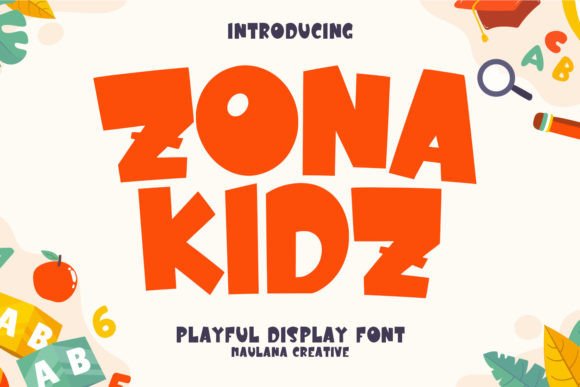
Embark on a Typographic Adventure with Zona Kidz: The Font That Captivates and Inspires
In the realm of fonts, Zona Kidz stands as a vibrant and playful display font, ready to infuse your designs with a touch of whimsy and charm. Its bold strokes and fun characters, adorned with ligatures and alternates, create a visual symphony that dances across your screens, captivating audiences with its unique flair.
Step into the world of Zona Kidz and let your creativity soar, as this font takes you on a typographic journey like no other. Its versatility shines in a multitude of applications, from crafting eye-catching logos that demand attention, to adorning social media posts with a dash of personality.
Unleash the power of Zona Kidz in the creation of captivating movie titles that ignite the imagination, or let it grace the covers of books, drawing readers into the enchanting tales within. Short texts and lengthy paragraphs alike find harmony with this font, making it the perfect choice for a wide range of design projects.
The beauty of Zona Kidz lies in its ability to complement both script and serif fonts seamlessly, creating harmonious compositions that captivate the senses. With Zona Kidz as your secondary font, you'll elevate your designs to new heights, captivating audiences with its charming presence.
Make a statement with Zona Kidz, a font that embodies creativity, playfulness, and boundless possibilities. Transform your designs into stunning works of art, leaving a lasting impression on all who encounter them. Embrace the magic of Zona Kidz and let your imagination run wild!